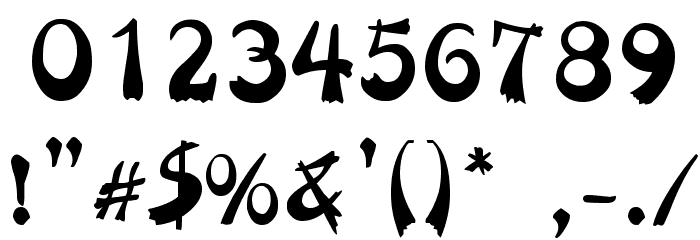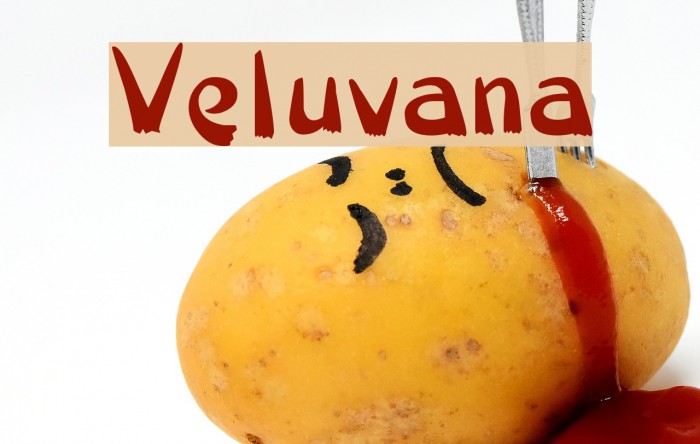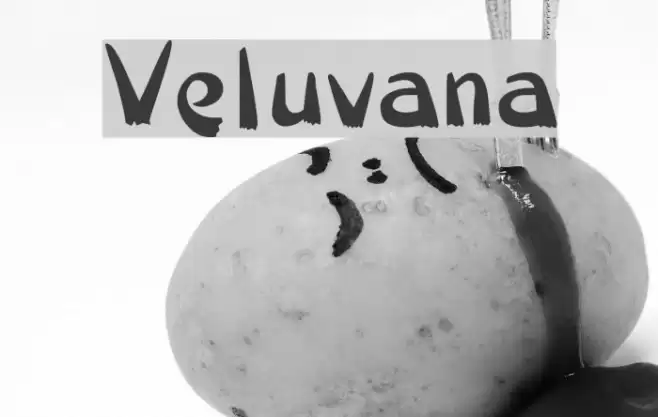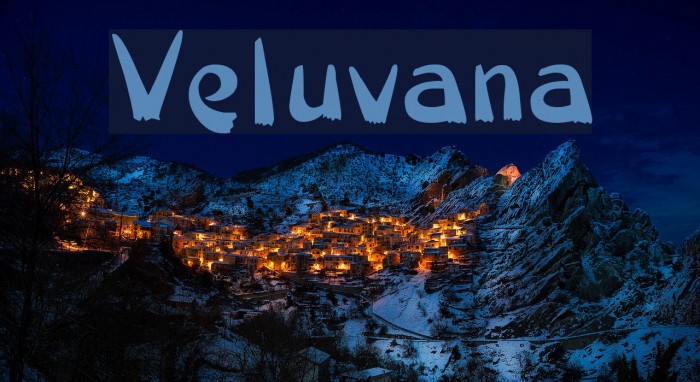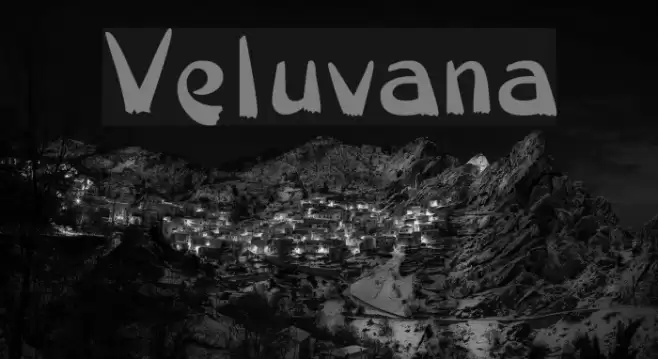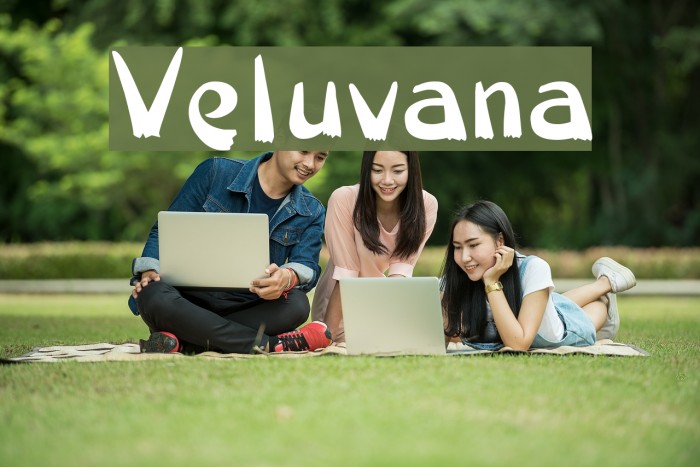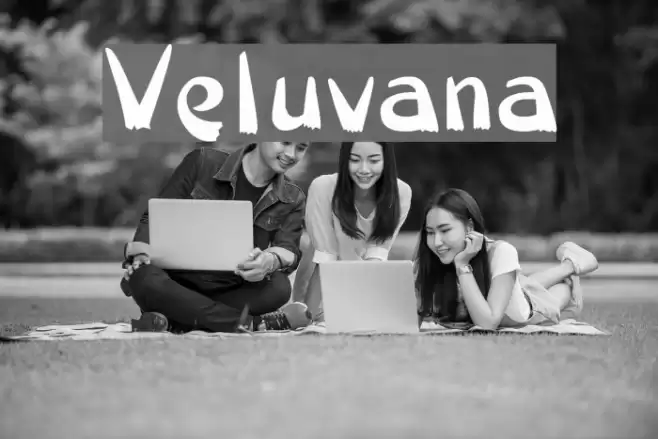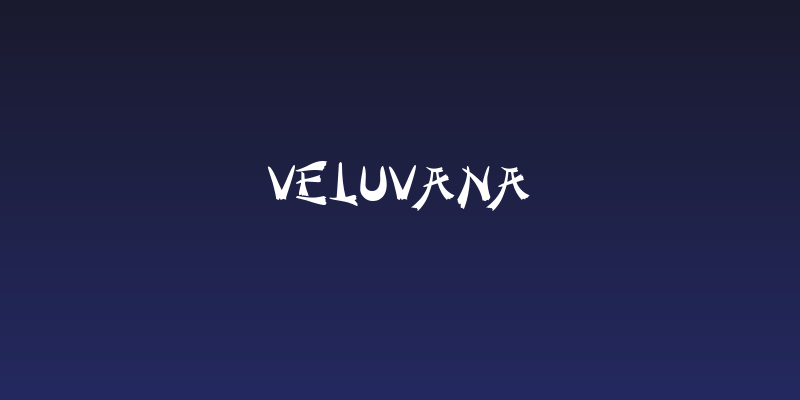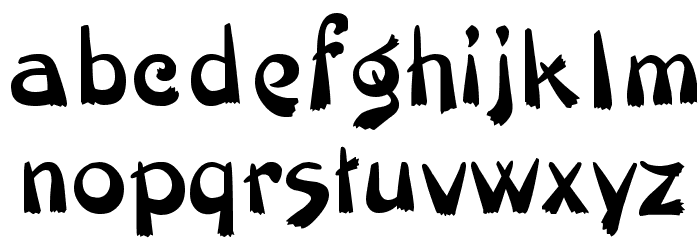
Veluvana Font
Veluvana Description
This font features a bold and dynamic style with sharp, angular edges and a slightly distressed appearance. The characters are designed with a unique flair, incorporating irregular strokes that give a sense of movement and energy. The uppercase letters are particularly striking, with exaggerated serifs and varying line thicknesses that create a dramatic effect. The lowercase letters maintain a consistent style, complementing the uppercase with their own distinctive shapes. Numbers and special characters follow the same design principles, ensuring a cohesive look across all elements. This font's bold and artistic nature makes it ideal for projects that require a strong visual impact.
| Proposed Projects | Ideal for posters, album covers, branding, and any project needing a strong visual impact. |